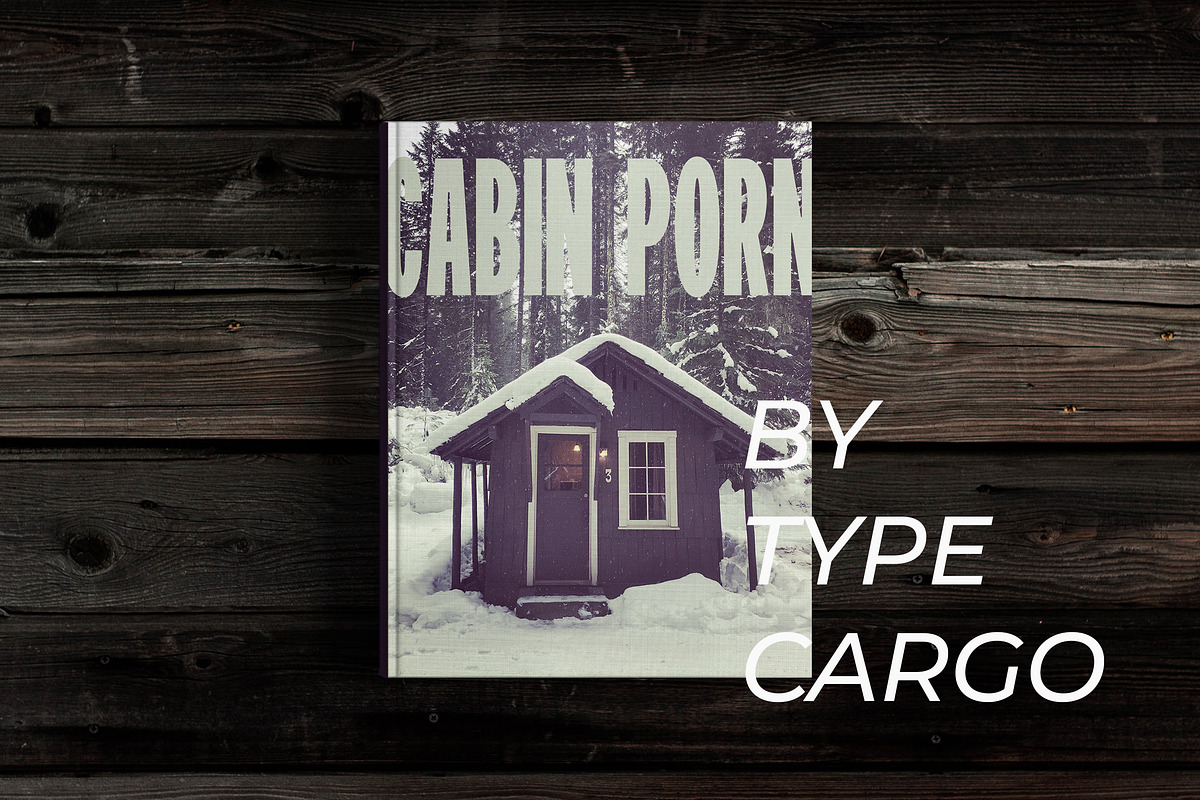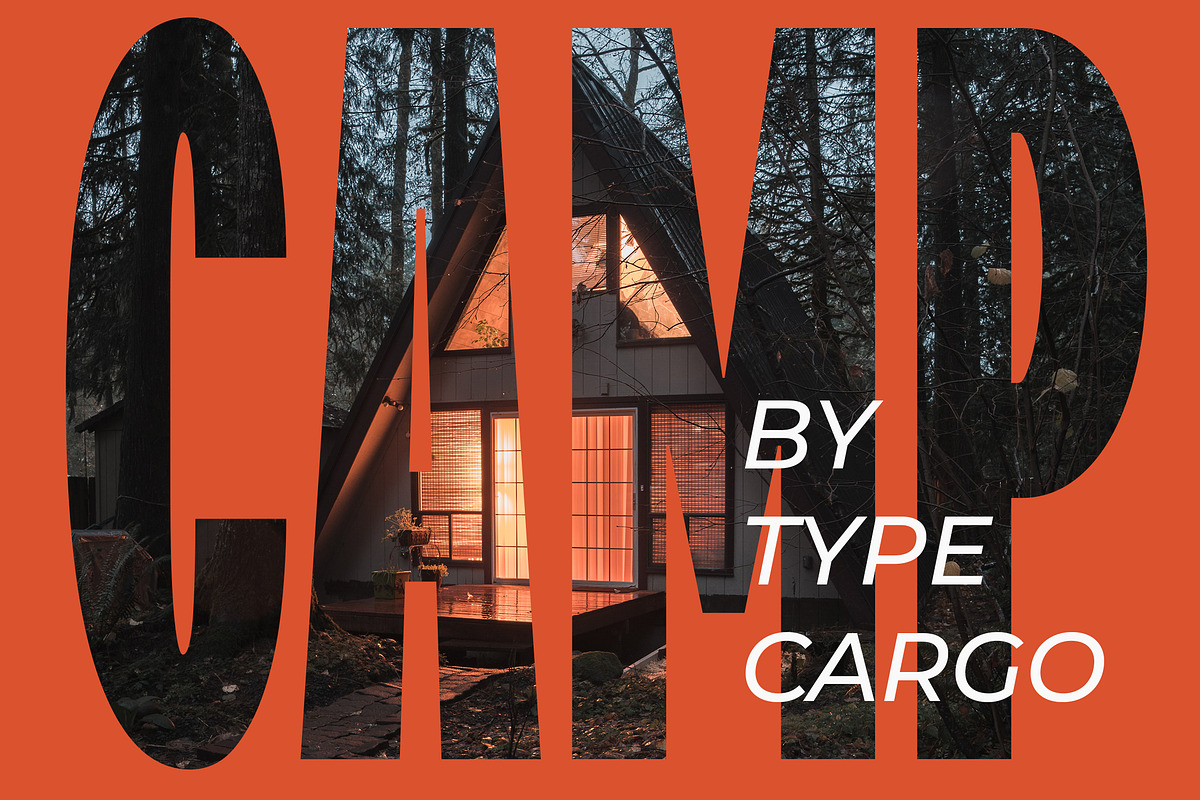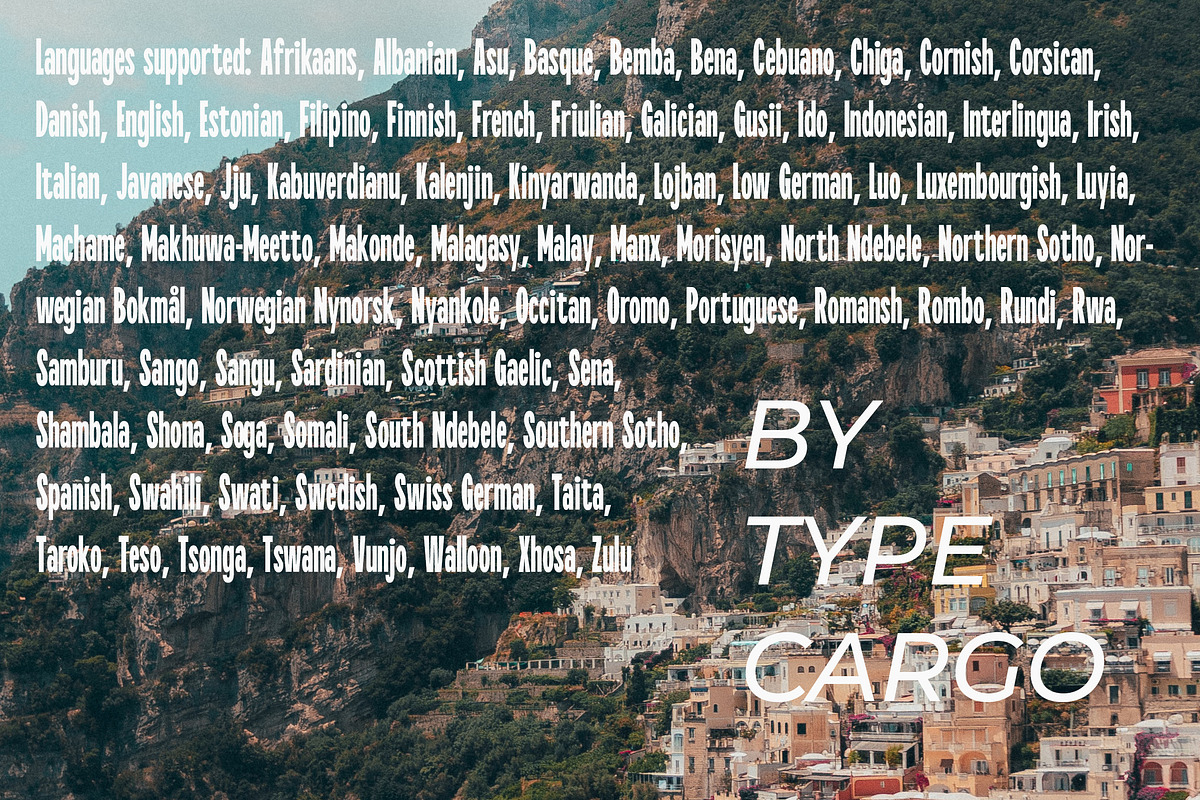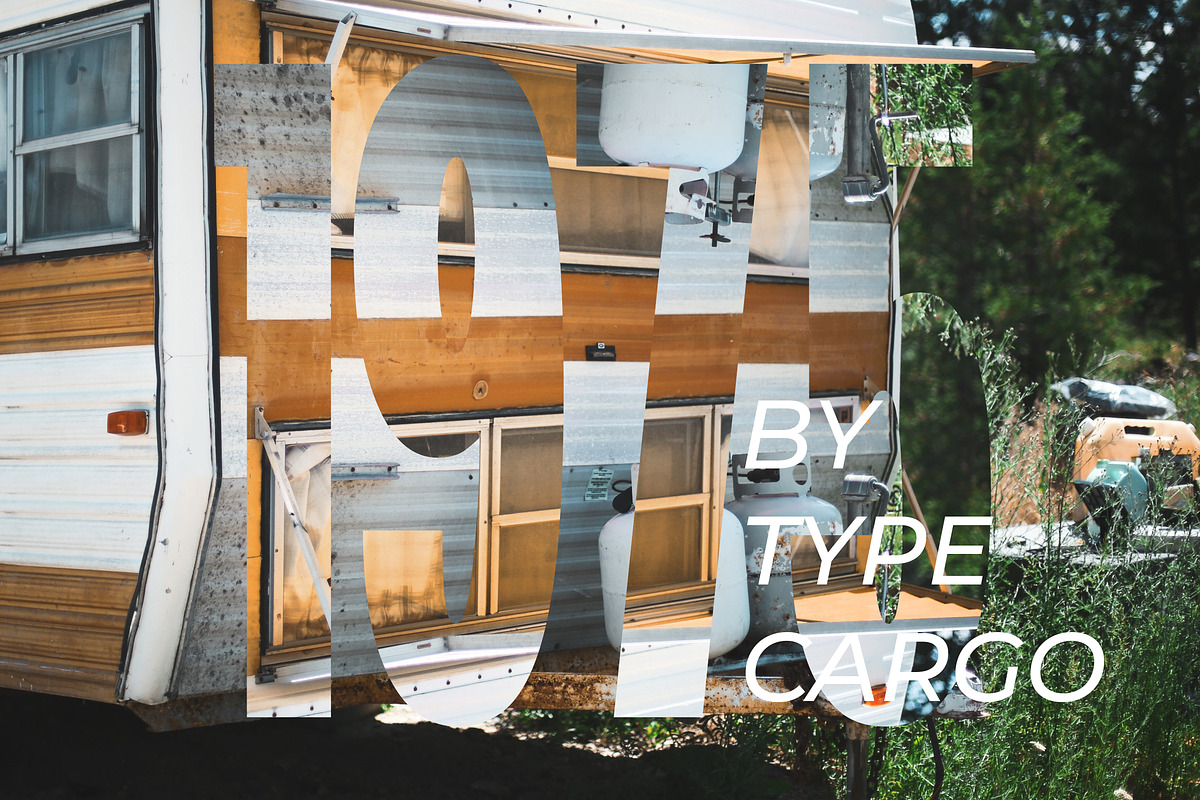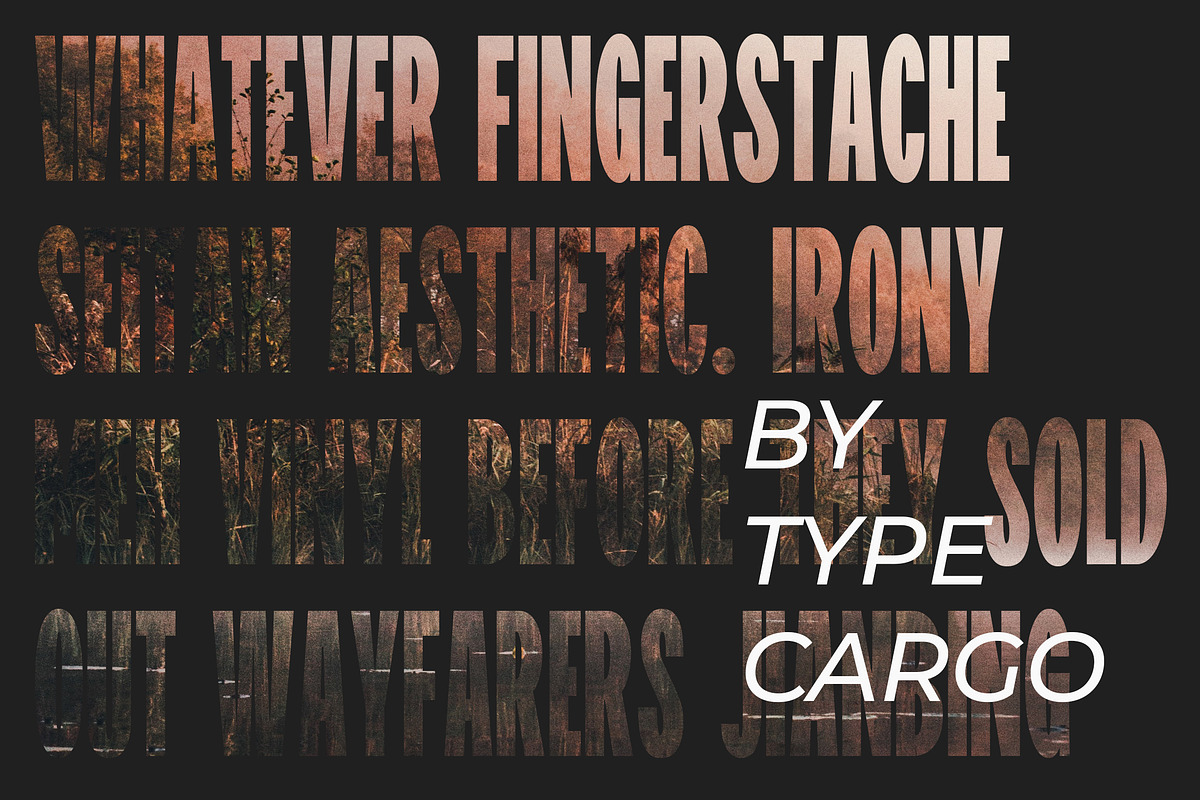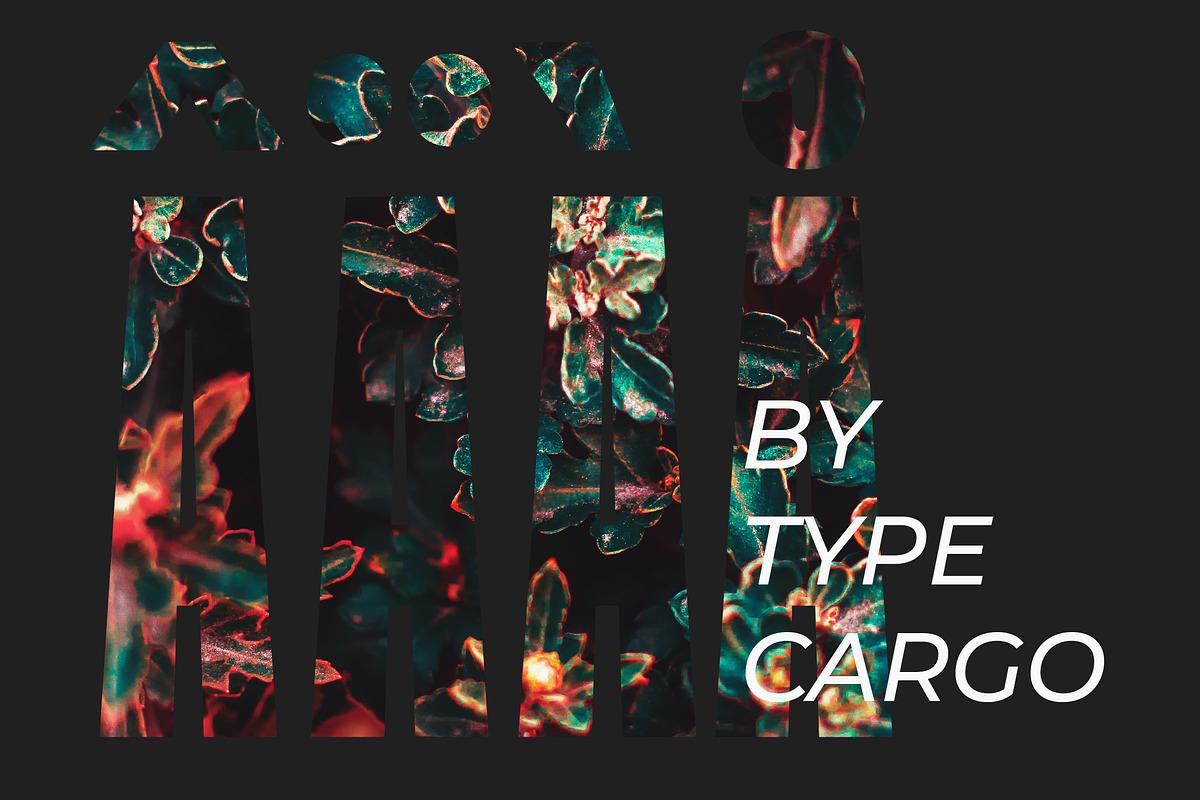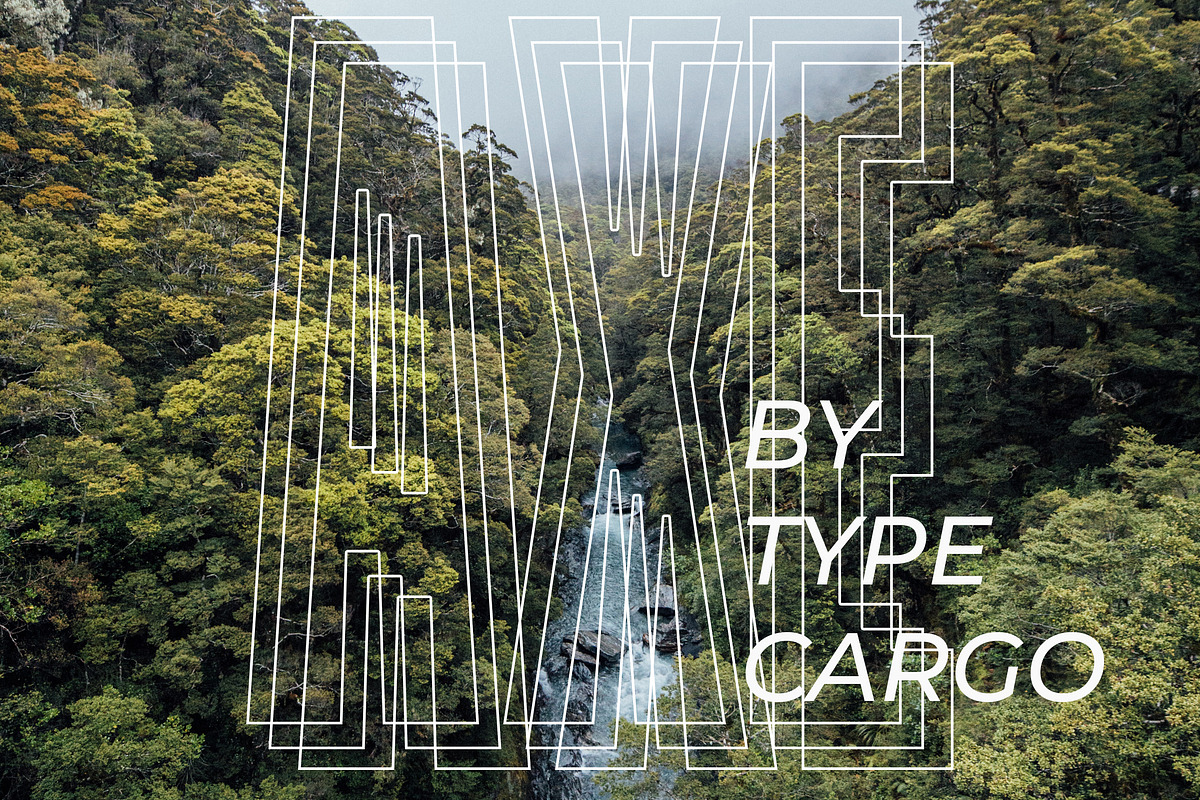
CAMP Display Font
CAMP is a modern display font perfect for attention grabbing headlines, editorial layouts, or anything else you can dream up. It offers uppercase, lowercase, numbers, and special characters.
Languages supported: Afrikaans, Albanian, Asu, Basque, Bemba, Bena, Cebuano, Chiga, Cornish, Corsican, Danish, English, Estonian, Filipino, Finnish, French, Friulian, Galician, Gusii, Ido, Indonesian, Interlingua, Irish, Italian, Javanese, Jju, Kabuverdianu, Kalenjin, Kinyarwanda, Lojban, Low German, Luo, Luxembourgish, Luyia, Machame, Makhuwa-Meetto, Makonde, Malagasy, Malay, Manx, Morisyen, North Ndebele, Northern Sotho, Norwegian Bokmål, Norwegian Nynorsk, Nyankole, Occitan, Oromo, Portuguese, Romansh, Rombo, Rundi, Rwa, Samburu, Sango, Sangu, Sardinian, Scottish Gaelic, Sena, Shambala, Shona, Soga, Somali, South Ndebele, Southern Sotho, Spanish, Swahili, Swati, Swedish, Swiss German, Taita, Taroko, Teso, Tsonga, Tswana, Vunjo, Walloon, Xhosa, Zulu
- It offers uppercase, lowercase, numbers, and special characters.
Why CAMP Display Font is worth a look